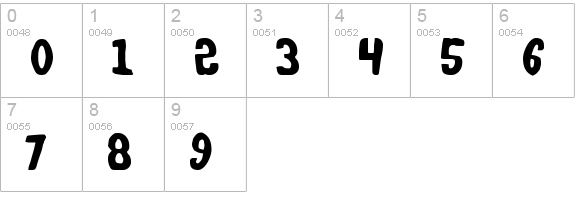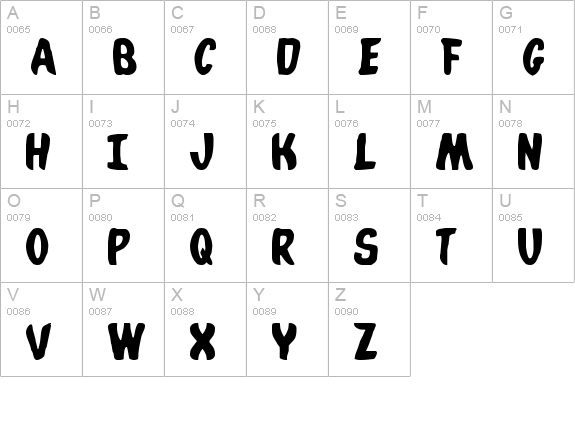
Whatafont Font Details
Introducing Whatafont, a versatile and visually stunning font that is sure to capture your audience's attention. With its sleek lines and modern design, Whatafont effortlessly combines elegance with a touch of playfulness, making it perfect for a wide range of creative projects. Whether you're designing a logo, crafting a captivating headline, or creating eye-catching graphics, Whatafont offers endless possibilities. Its clean and legible characters ensure readability, while its unique flair adds a distinctive touch to any design. One of the most remarkable aspects of Whatafont is that it is completely free! Yes, you heard that right - this exceptional font can be freely downloaded from FontsMarket.com. Now you can enhance your projects with a premium-quality font without breaking the bank. Whatafont's extensive character set includes uppercase and lowercase letters, numerals, punctuation marks, and special symbols, allowing you to express your creativity without limitations. Its seamless compatibility with various design software and applications ensures a smooth and hassle-free experience. Don't miss out on the opportunity to elevate your designs with Whatafont. Download it for free today at FontsMarket.com and experience the power of this remarkable font. Whether you're a professional designer, a creative enthusiast, or simply someone looking to add a touch of style to your projects, Whatafont is the perfect choice. Embrace its versatility, embrace its elegance, and let your designs shine brighter than ever before.